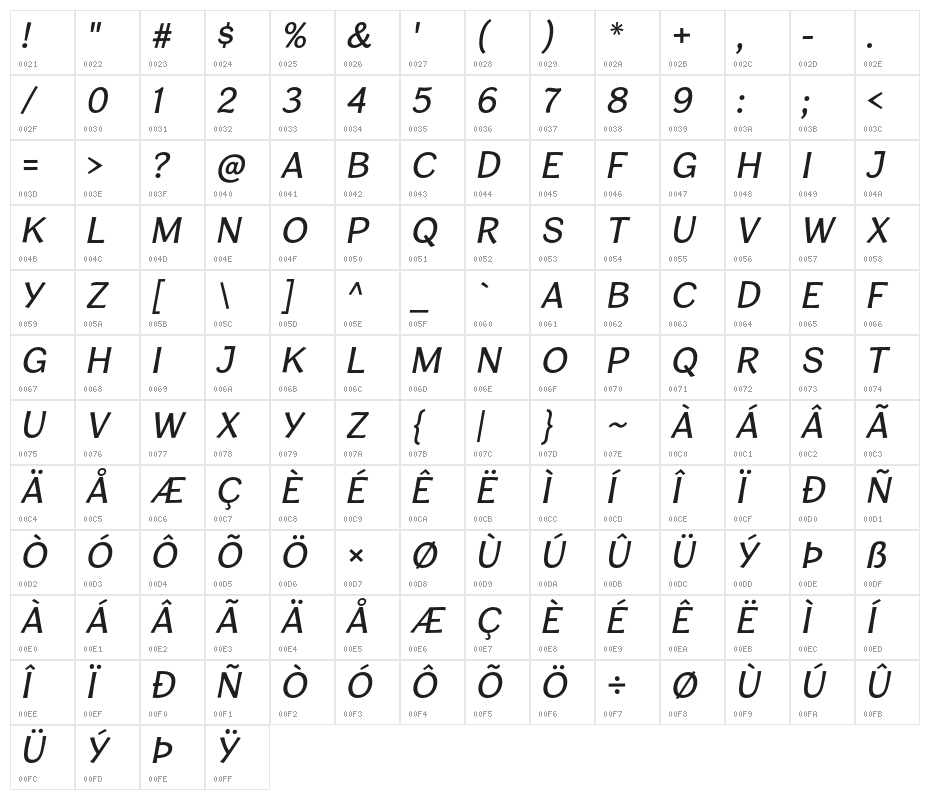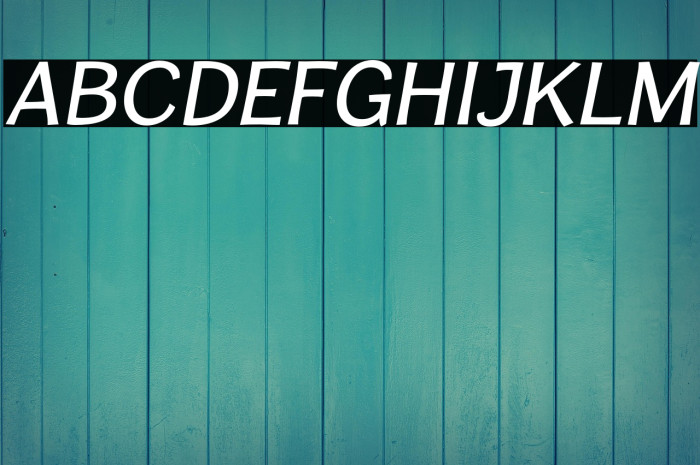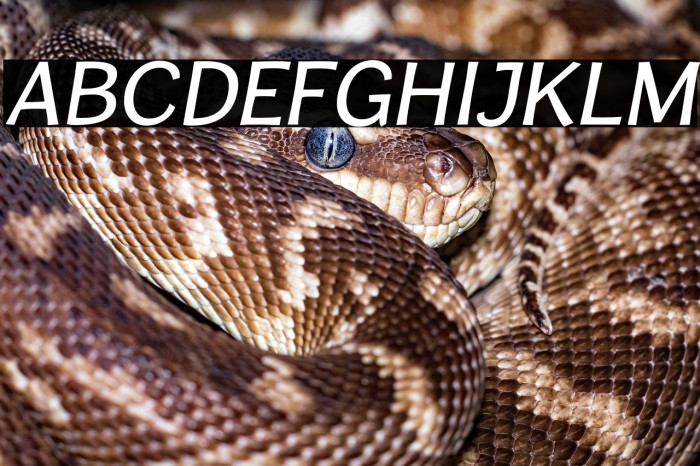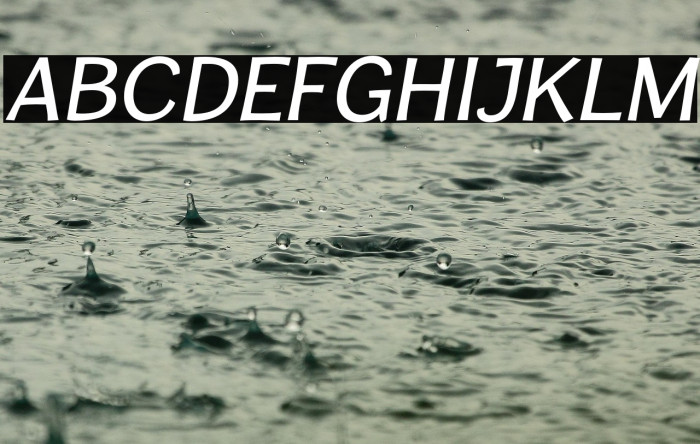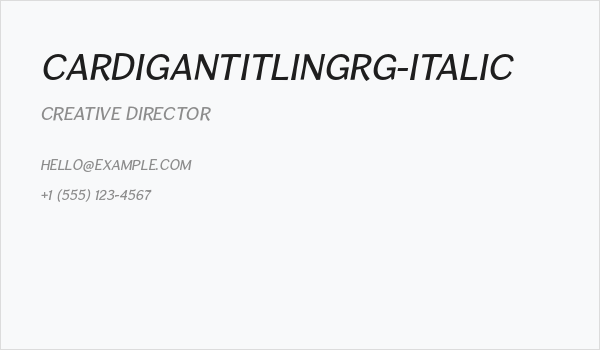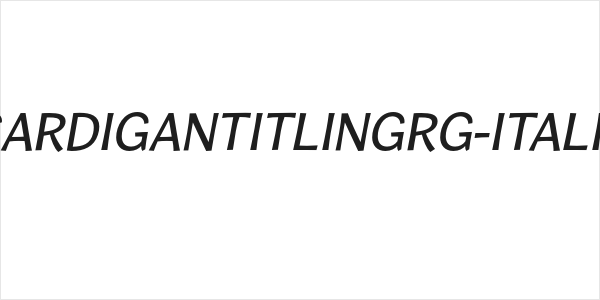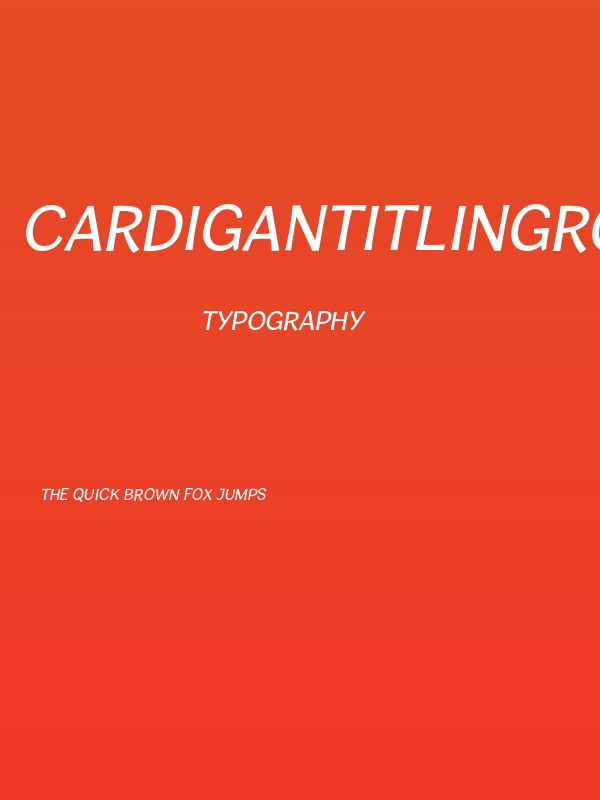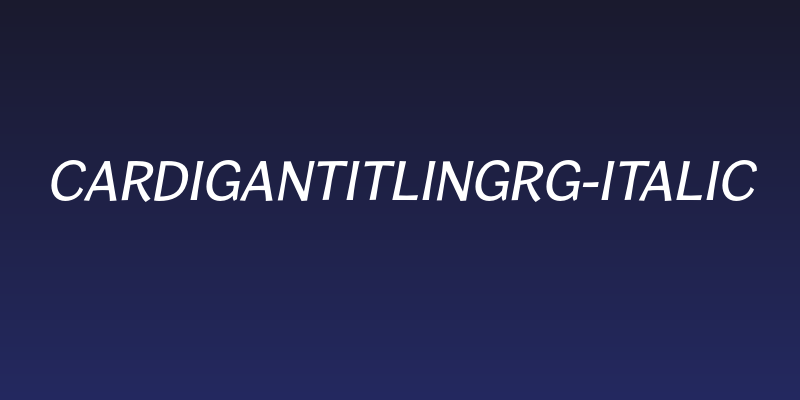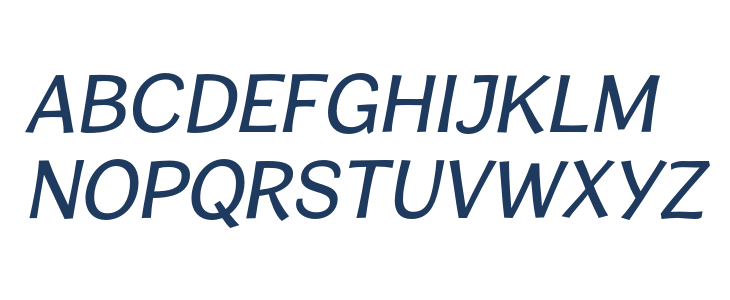
CardiganTitlingRg-Italic Font
CardiganTitlingRg-Italic Description
This font exhibits a sleek and modern design with a distinct italic slant, giving it a dynamic and forward-moving appearance. The characters are well-proportioned with a consistent stroke width, contributing to a clean and professional look. The uppercase and lowercase letters are crafted with precision, maintaining clarity and readability. The numerals are bold and easily distinguishable, while the special characters are neatly integrated, ensuring versatility in various design contexts.
| Use Case | Headlines, Logos, Advertising |
| Proposed Projects | Ideal for branding, advertising, and editorial design where a modern and professional aesthetic is desired. |